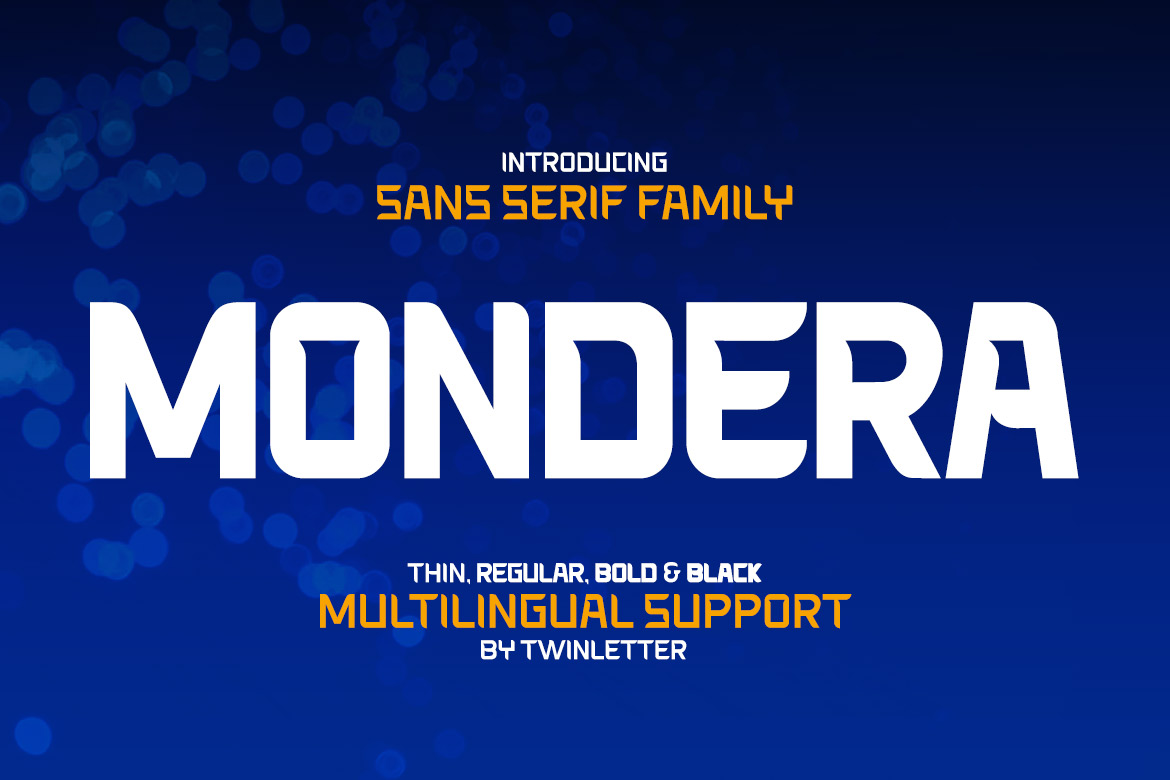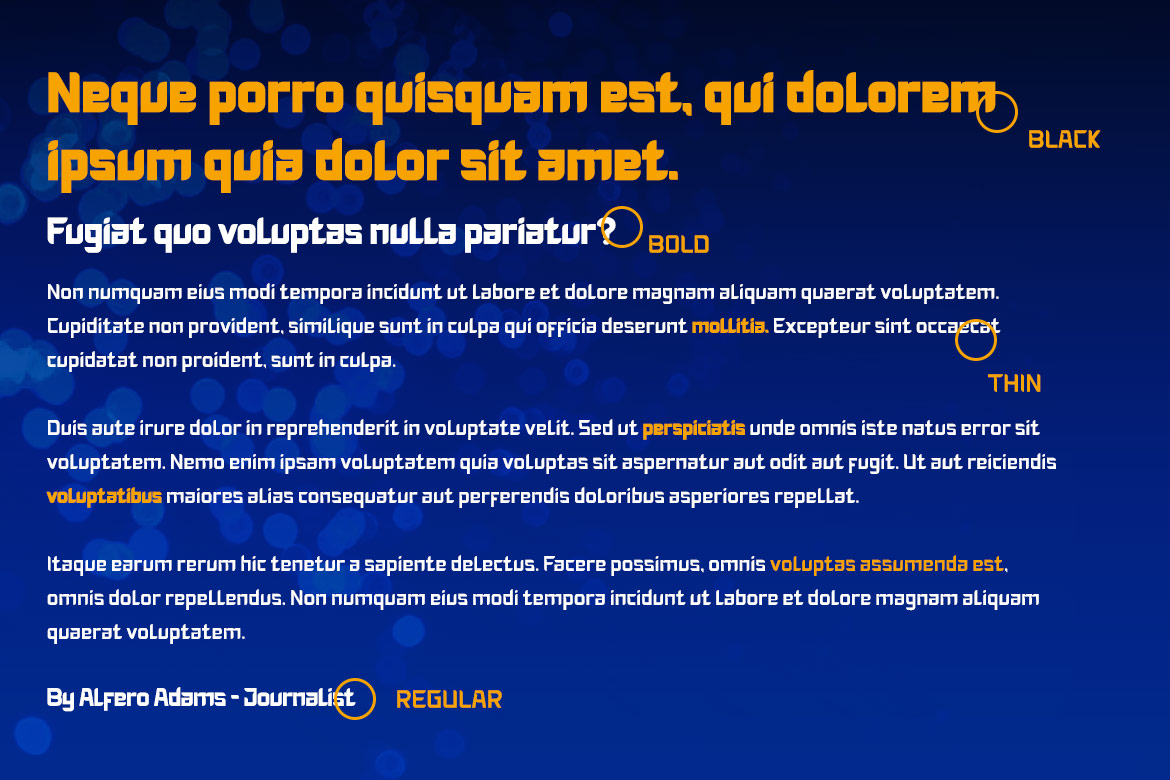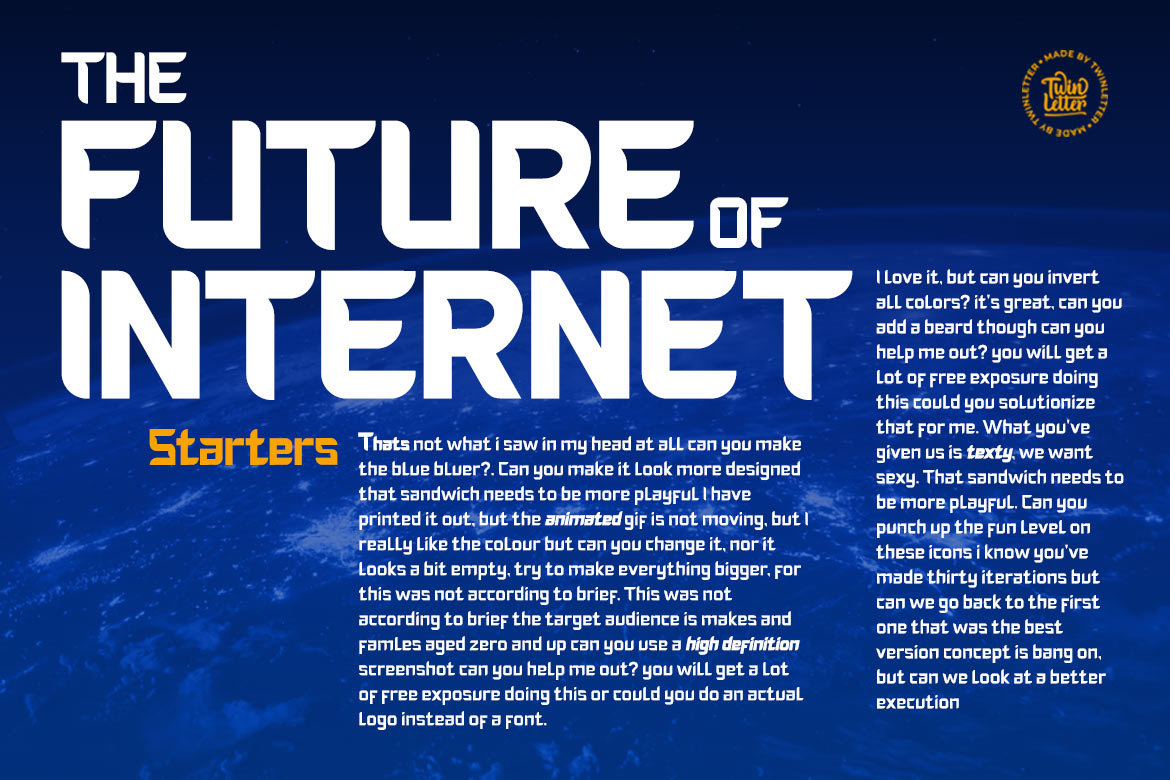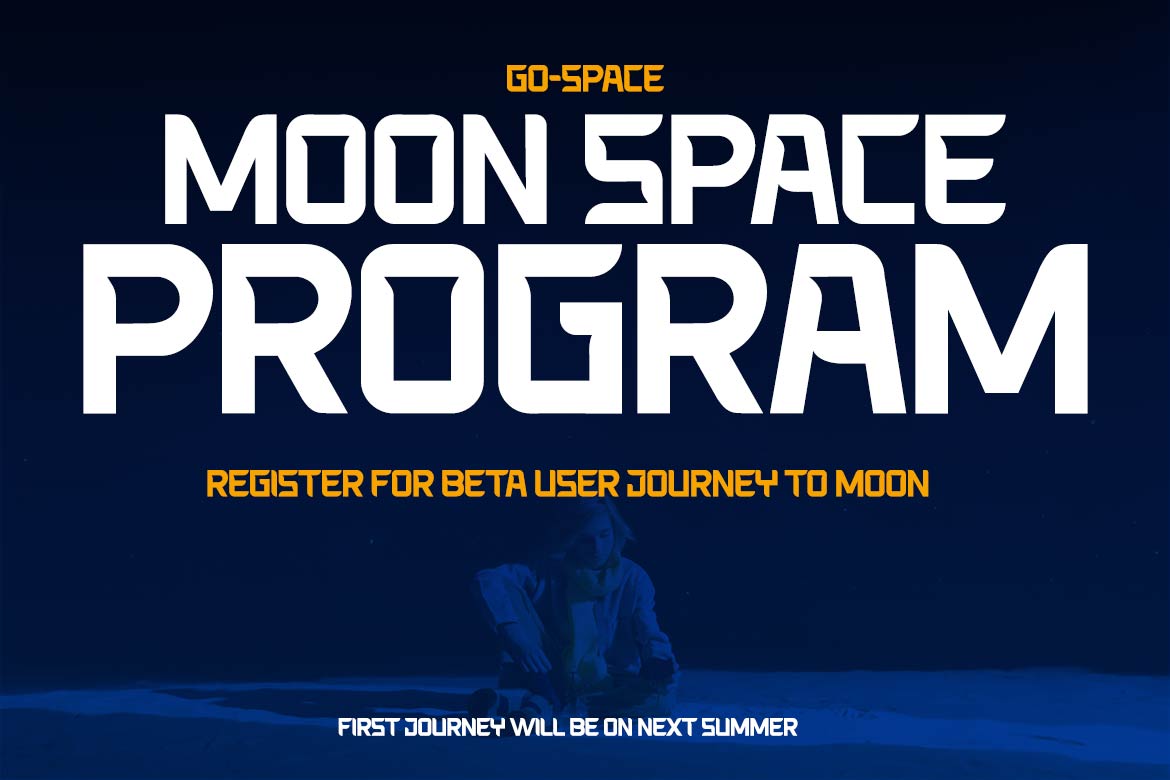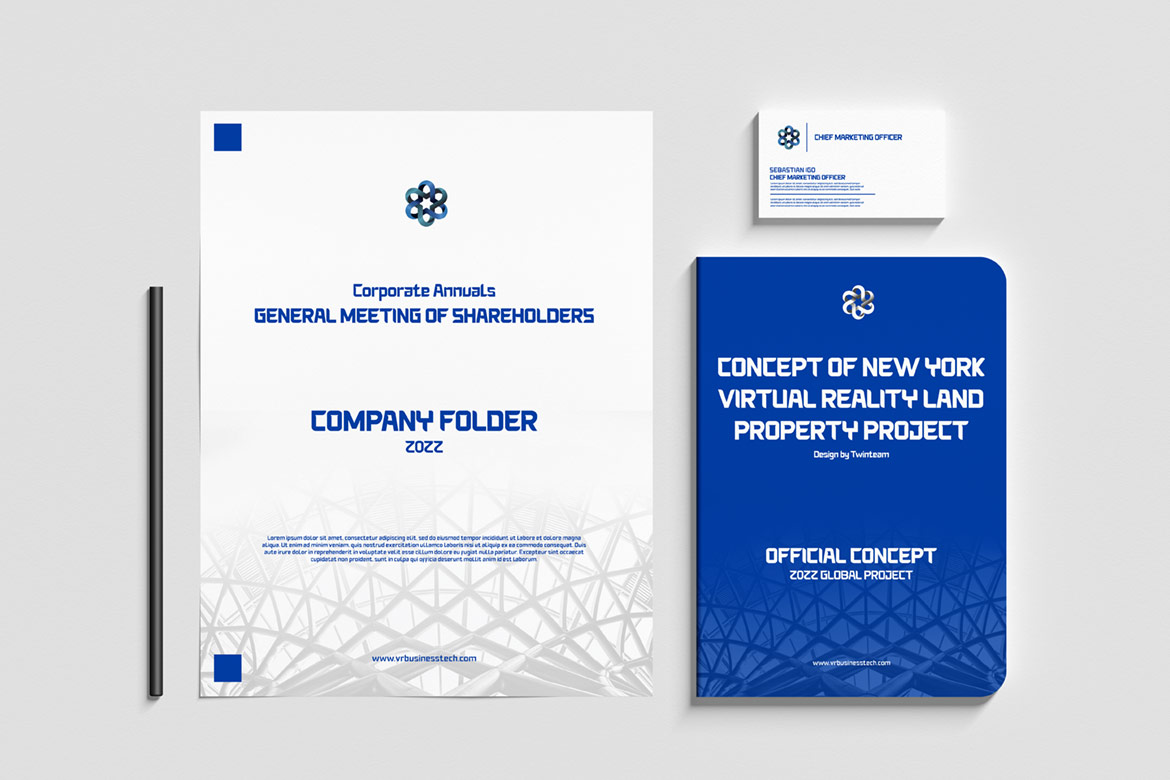
Mondera Font
Mondera Display Font
Introducing MONDERA, our newest san serif font. We created this font by paying close attention to the harmony between each letter, resulting in a lovely blend of words when viewed or read. If you use this font for all of your projects, both official and informal, everything will look the same.
of course, your various design projects will be perfect and extraordinary if you use this font because this font is equipped with a font family, both for titles and subtitles and sentence text, start using our fonts for your extraordinary projects.